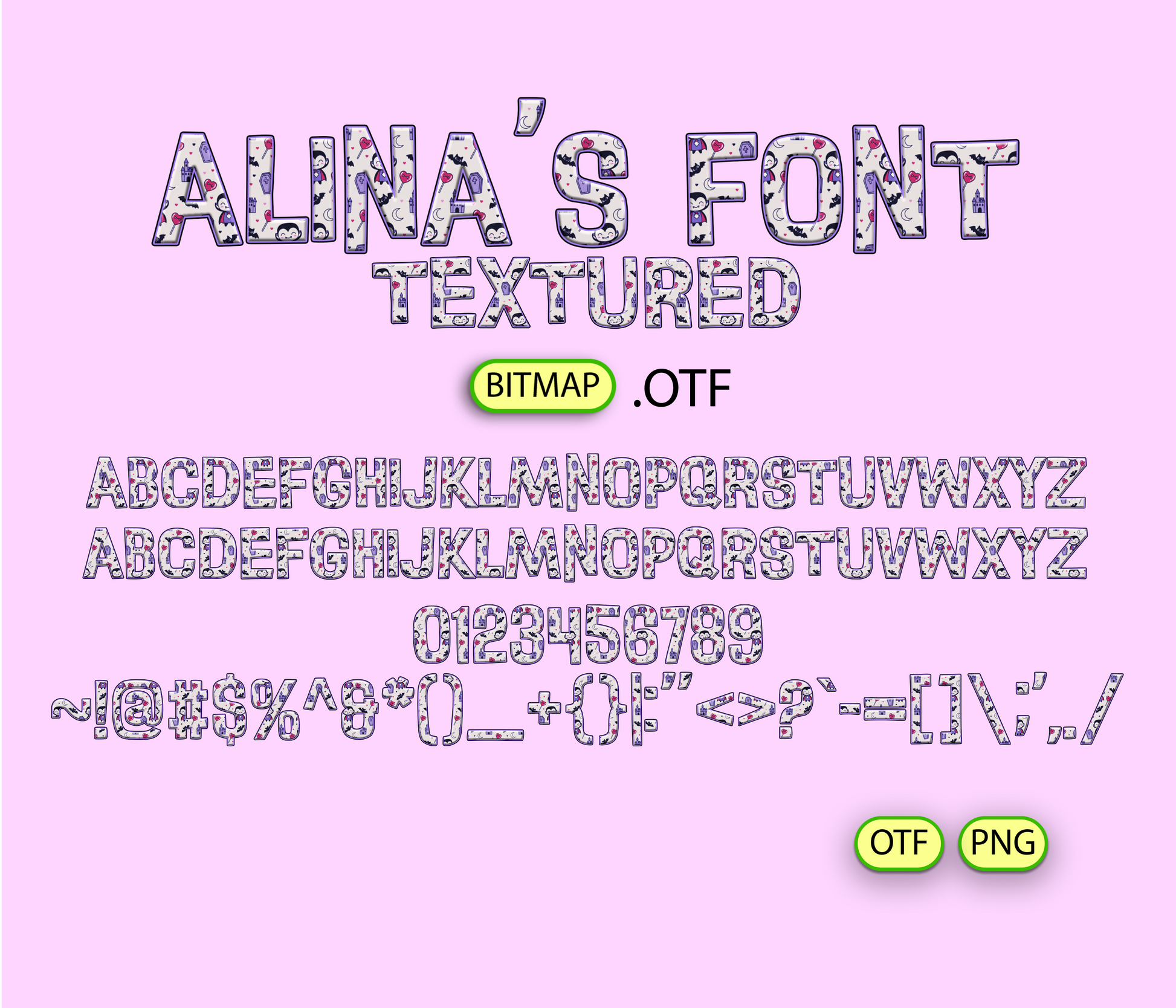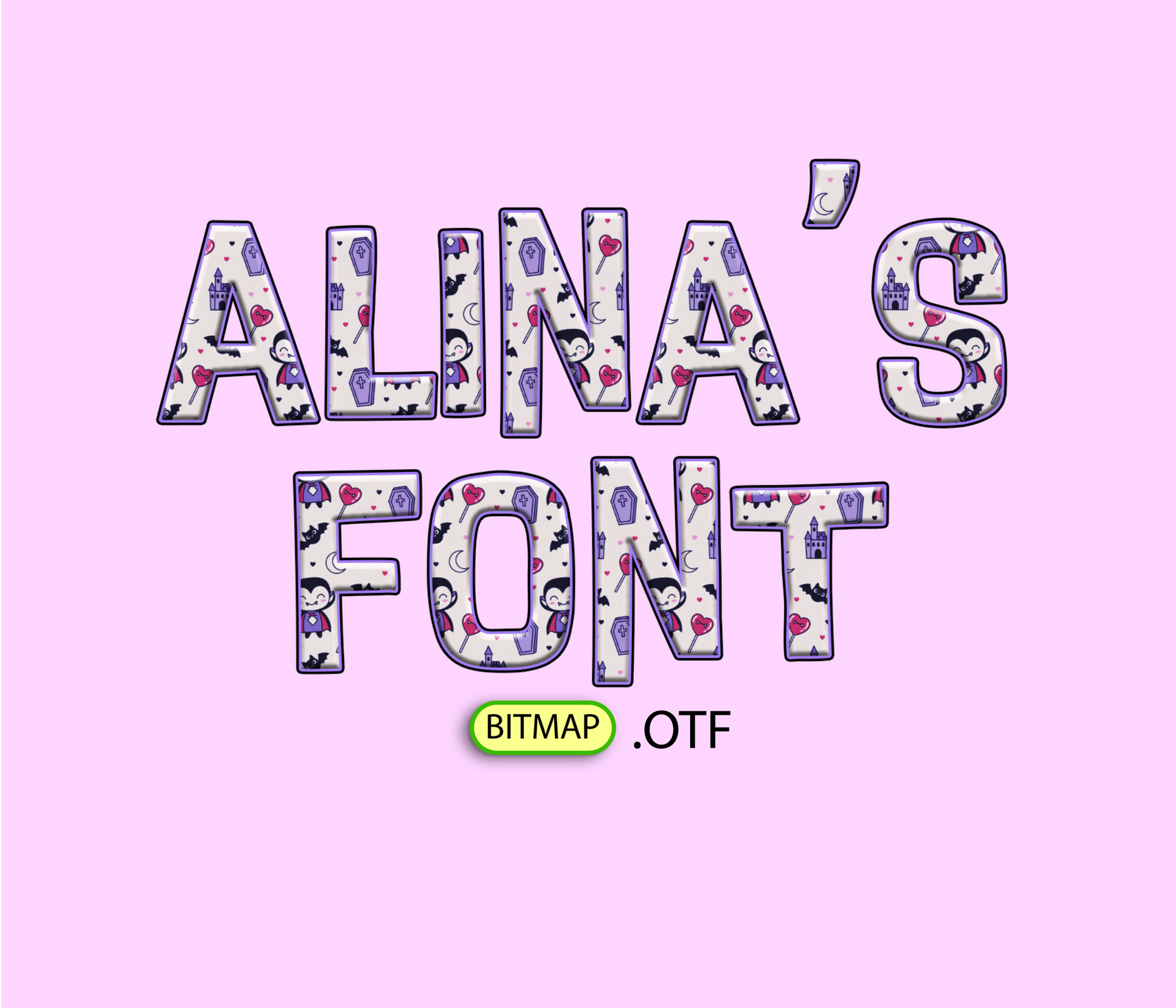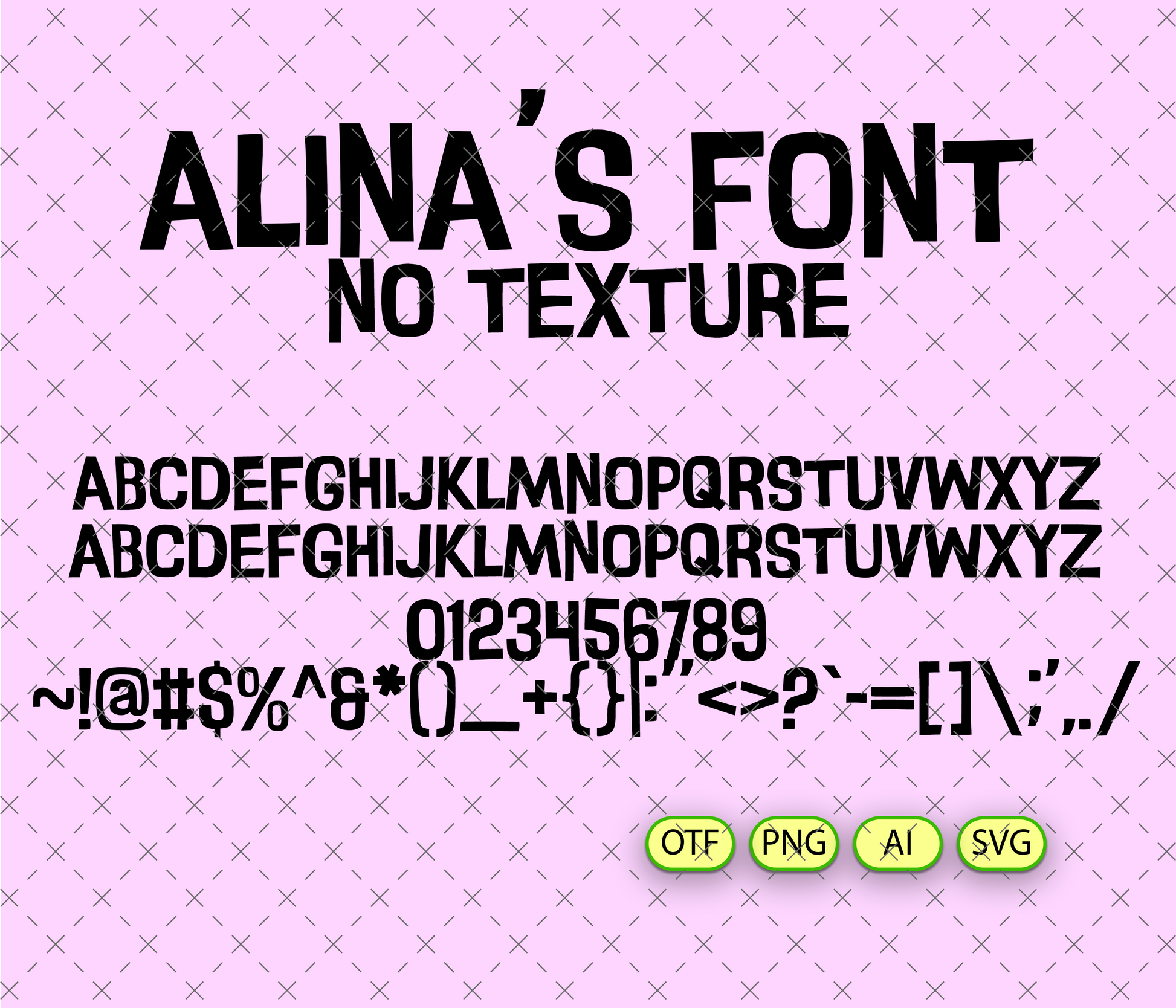
FREE Halloween Cute Vampire Pattern Font
Step into the spooky world of adorable bloodsuckers with our Halloween Cute Vampire font, capturing the essence of friendly fangs and whimsical creatures of the night. Perfect for Halloween fans, party planners, event organizers, and designers, this font brings the playful, charming spirit of cute vampires to your projects. Create delightful materials, merchandise, or digital content with the enchanting energy of lovable monsters.
Our Halloween Cute Vampire font features playful, fang-inspired lines and whimsical characters reflecting the world of adorable nighttime creatures. Ideal for:
- Event Promotions: Create charming invites, posters, and banners for Halloween parties, trick-or-treat events, and spooky celebrations that capture the spirit of cute vampires
- Merchandise Design: Perfect for t-shirts, posters, and accessories that showcase the playful aesthetic of friendly bloodsuckers and adorable monsters
- Digital Media: Enhance websites, blogs, and social media with whimsical headers and graphics that express the charm of cute Halloween creatures
- Halloween Content: Add authentic flair to party decorations, costume designs, and creative projects inspired by adorable vampire tales
- Personal Projects: Bring spooky-cute excitement to scrapbooking, DIY crafts, and home decor inspired by the world of friendly nighttime monsters
Our font pays tribute to the iconic world of adorable Halloween creatures, empowering your designs with its playful and charming spirit. Whether crafting promotional materials, designing merchandise, or adding a whimsical touch to personal projects, this font communicates the delightful essence of cute vampires. Ready to inject spooky-sweet magic into your creations? This font is your key to exciting, impactful design.